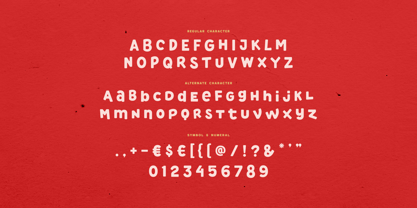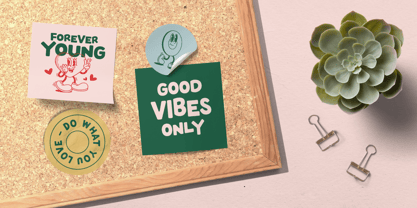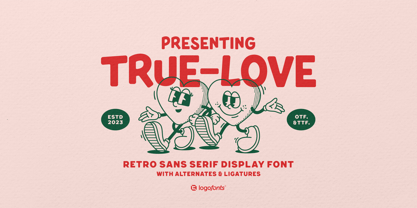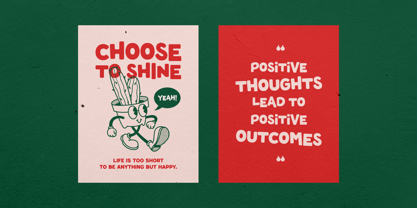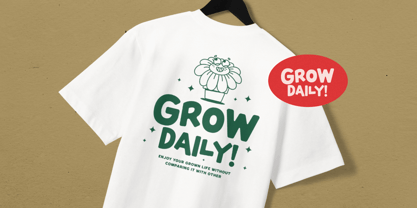
True Love
by Logofonts
True Love blends modern, clean lines with an organic, textured touch. Its minimalist sans-serif structure is paired with subtle, natural scratches and imperfections, giving it an earthy, hand-crafted feel. This typeface evokes a sense of authenticity and rawness, perfect for designs that aim to balance contemporary simplicity with a hint of character and roughness.
Ideal for projects that require a blend of elegance and rustic charm, True Love offers a unique twist on the traditional sans-serif. Whether used for branding, packaging, posters, or digital media, its scratched details add personality and visual interest without sacrificing legibility. This typeface brings warmth and individuality to any design, making it a standout choice for projects that need to feel both modern and authentic.